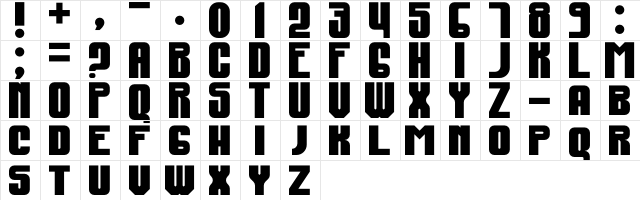
Fest235 Regular
| Designer | Rico Rifa'i |
Design Context for Fest235 Typeface
Fest235 is a composed and adaptable typeface that performs quietly and consistently across a wide range of design contexts.